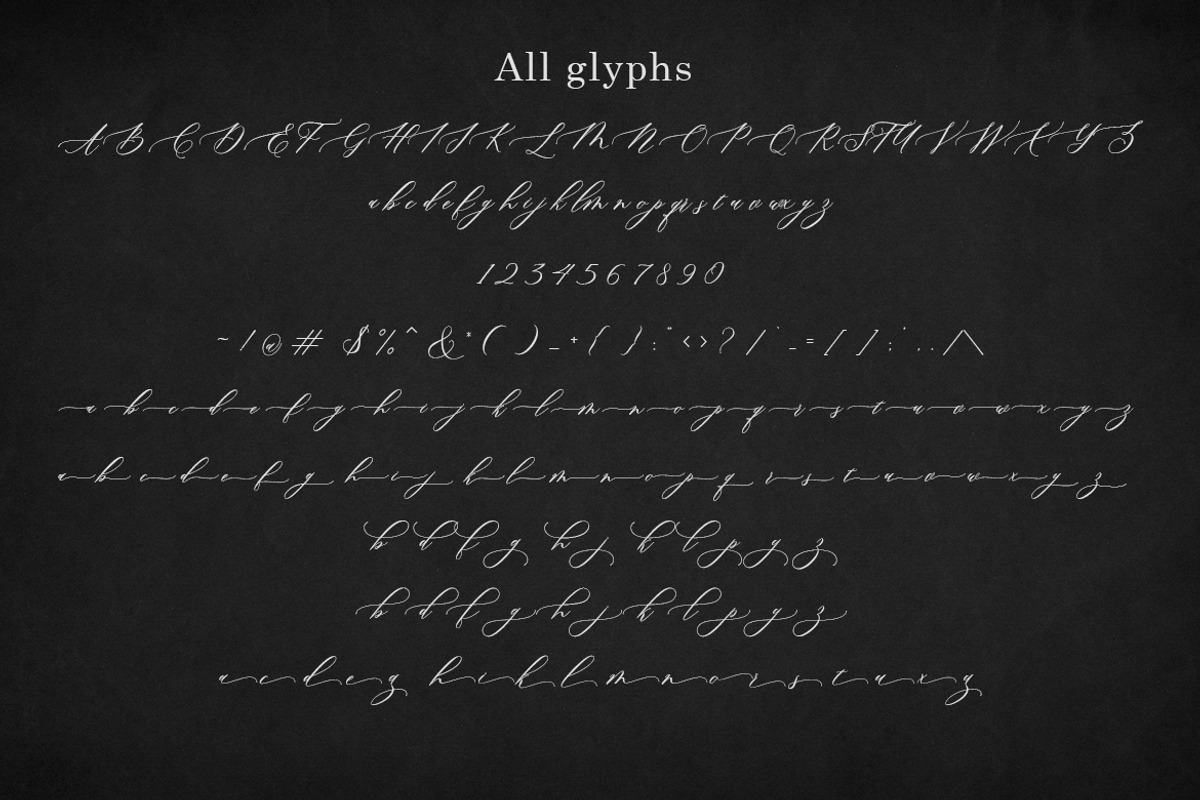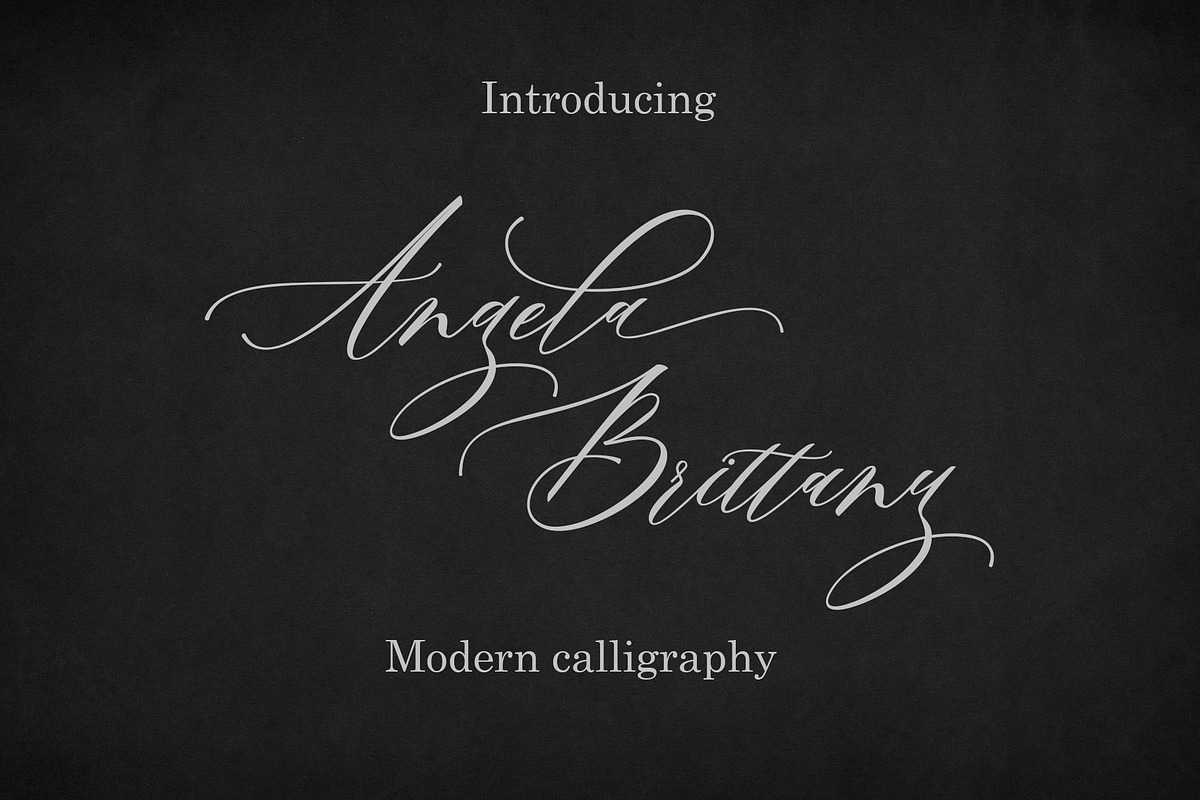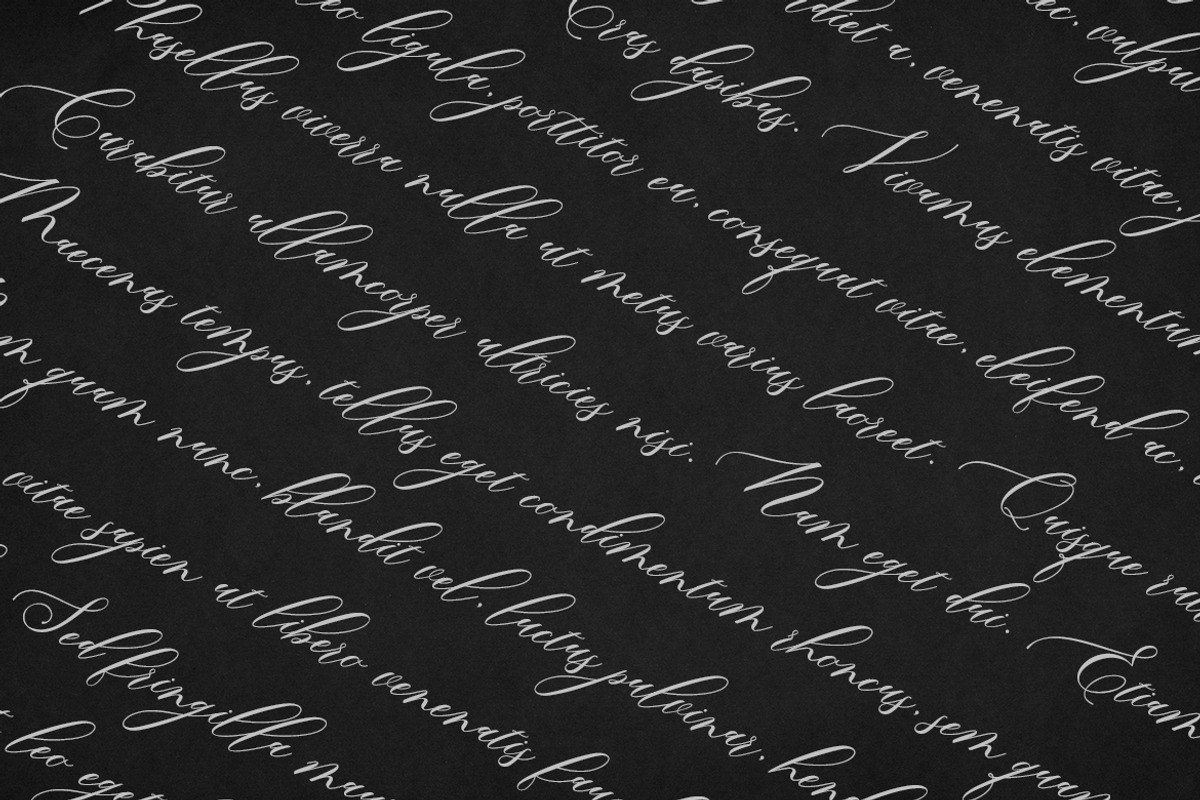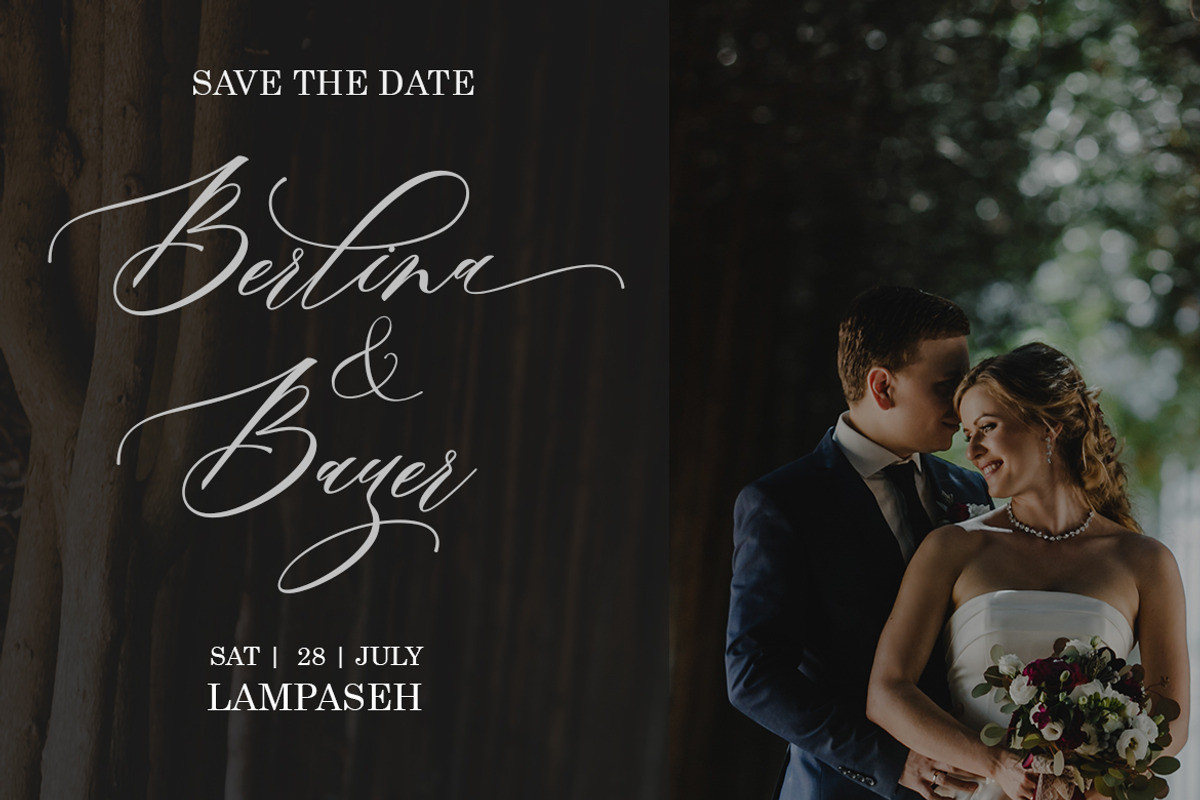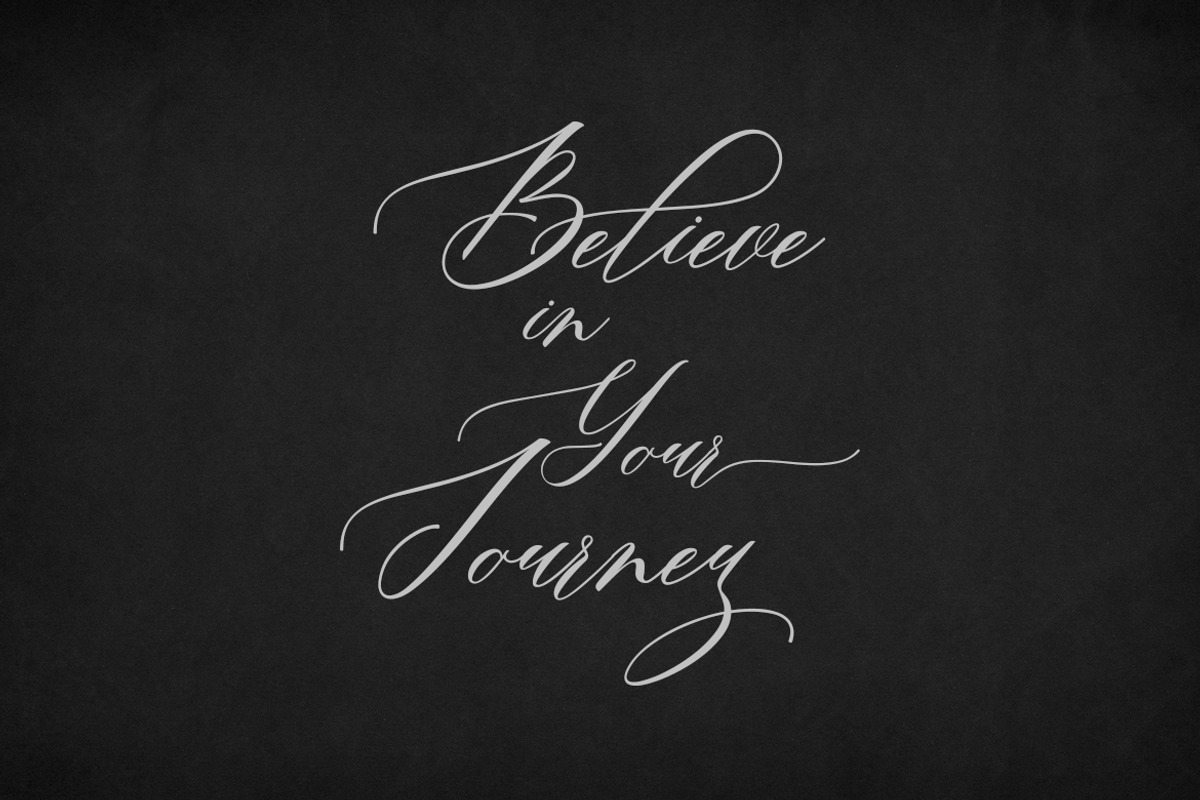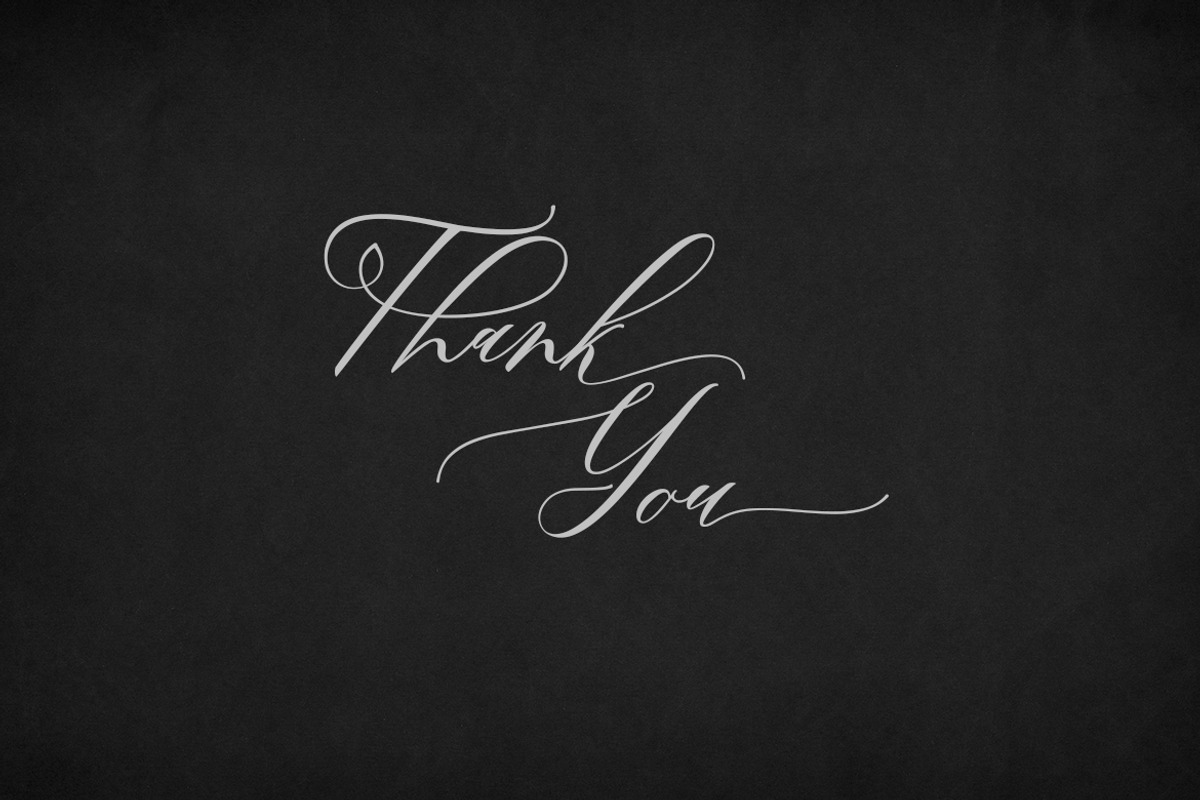
Angela Brittany
Introducing Angela Brittany, a captivating amalgamation of timeless elegance and modern allure, embodied tastefully in a sleek typeface. This font’s gracefully fluid strokes and gently curved characters subtly interplay with its inherent delicacy, bringing its exquisite aesthetics to life. Boasting incredible adaptability, Angela Brittany effortlessly graces design projects ranging from chic wedding invitations to premium branding designs and polished editorial layouts. Immerse yourself in the enchanting beauty of Angela Brittany, a harmonious blend of contemporary style and articulate design.